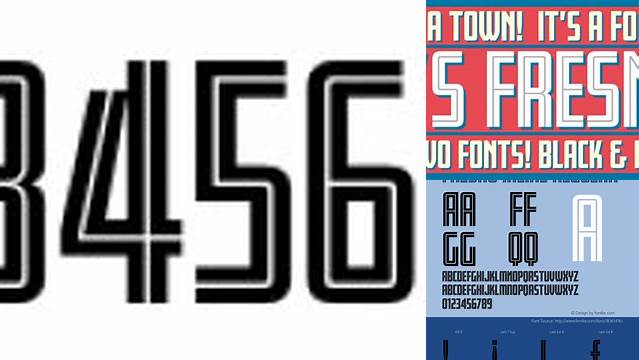
Hey guys! Ever stumbled upon a font that just screams elegance and style? Well, let's talk about the Fresno Inline font! This font has been making waves in the design world, and for good reason. It’s clean, it’s modern, and it’s incredibly versatile. Whether you’re working on a logo, a website, or even just a cool poster, Fresno Inline can really elevate your design game. In this comprehensive guide, we’re diving deep into everything you need to know about Fresno Inline, from where to snag it for free to how to use it like a pro. So, buckle up and let's get started!
1. What is Fresno Inline Font?
Fresno Inline font is a typeface known for its sleek, contemporary design. It features a distinctive inline style, meaning there are lines running inside the main strokes of the letters. This gives it a unique, almost industrial look, while still maintaining a sense of sophistication. The Fresno Inline font is perfect for projects that need a touch of modern flair, but also need to remain legible and professional. It’s not your average run-of-the-mill font; it’s got character, it’s got personality, and it’s got that je ne sais quoi that makes a design really pop. Think about how a simple font can completely change the vibe of your project. Fresno Inline is one of those fonts that can do just that – transform your work from basic to brilliant. It’s this unique blend of modern and classic that makes Fresno Inline such a hit among designers and creatives.
2. Key Characteristics of Fresno Inline
One of the standout characteristics of the Fresno Inline font is its clean and minimalist design. The inline strokes add visual interest without making the font feel cluttered or overwhelming. It’s a delicate balance, and Fresno Inline nails it perfectly. The font also boasts excellent readability, even at smaller sizes, which makes it ideal for body text as well as headlines. This versatility is a huge plus, as you can use it in various contexts without sacrificing clarity. Another key characteristic is its geometric construction. The letters are built on a solid, geometric foundation, giving the font a structured and balanced appearance. This makes it a great choice for projects that require a sense of order and precision. Plus, the uniform stroke width throughout the font contributes to its overall clean and polished look. When you combine all these elements, you get a font that is not only visually appealing but also highly functional. Fresno Inline's thoughtful design ensures it looks great in a variety of applications, from digital designs to print materials. This makes it a valuable asset in any designer's toolkit.
5. Fresno Inline Font Alternatives
If you're having trouble finding Fresno Inline font for free, or if you're just looking for some similar options, you're in luck! There are plenty of fantastic alternatives out there that capture the same modern and stylish vibe. One great option is Montserrat, a popular sans-serif font that's available on Google Fonts. Montserrat has a clean, geometric design that's similar to Fresno Inline, making it a versatile choice for a wide range of projects. Another excellent alternative is Bebas Neue, a tall and condensed sans-serif that's perfect for headlines and titles. Its bold and impactful design can add a touch of drama to your work. If you're looking for something a bit more unique, consider Raleway. This elegant sans-serif features a distinctive